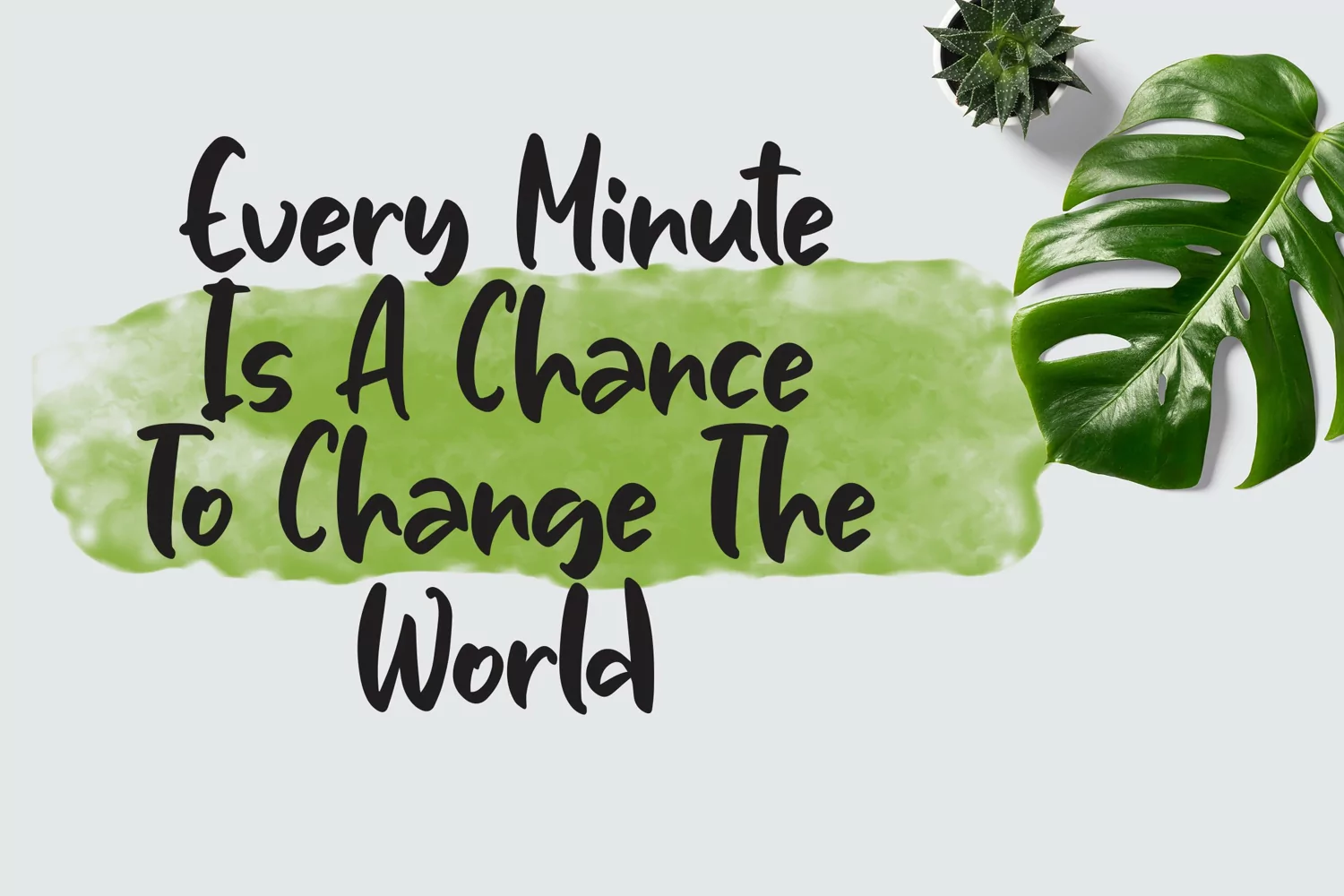
Thirty Second - Handmade Brush Font that contain lowercase, uppercase, symbol, and also support multi language. There’s a lot ligatures in this font. This Font also comes with ligatures, alternates and many more. this font suitable for fashion, branding, catalog and other design what you want.
Thirty Second